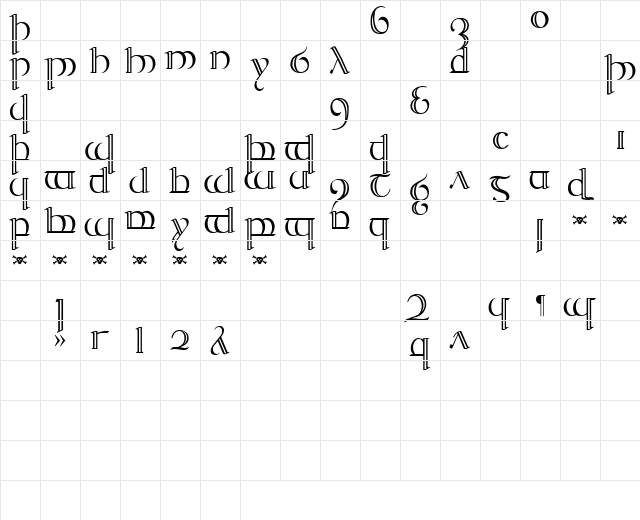
Tengwar Quenya-2 Regular
Design Context for Tengwar Quenya-2 Typeface
Tengwar Quenya-2 offers clean, dependable letterforms without strong stylistic allegiance, making it a practical choice for designers who need flexibility.